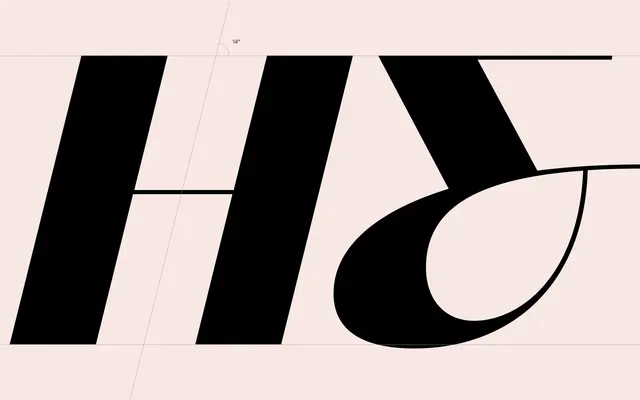
Neue Magnat Display
Studio Rene Bieder · Rene Bieder
A display-optimised humanist sans in six weights with matching italics, offering extensive OpenType alternates for expressive headline work.
Part of the wider Neue Magnat family alongside Standard and Text cuts, this display variant carries six weights from Light to ExtraBold, each with a matching italic. A generous set of OpenType alternates covers single and double-storey a and g, alternate k, y, ampersand, German umlauts, punctuation and arrows, giving designers fine control over character. Suited to editorial headlines, packaging and branding where a warm sans with personality is needed at large sizes.
The page explicitly labels the family as humanistic, and the range of alternate characters including double-storey a and g variants points to a humanist sans construction optimised for display use.